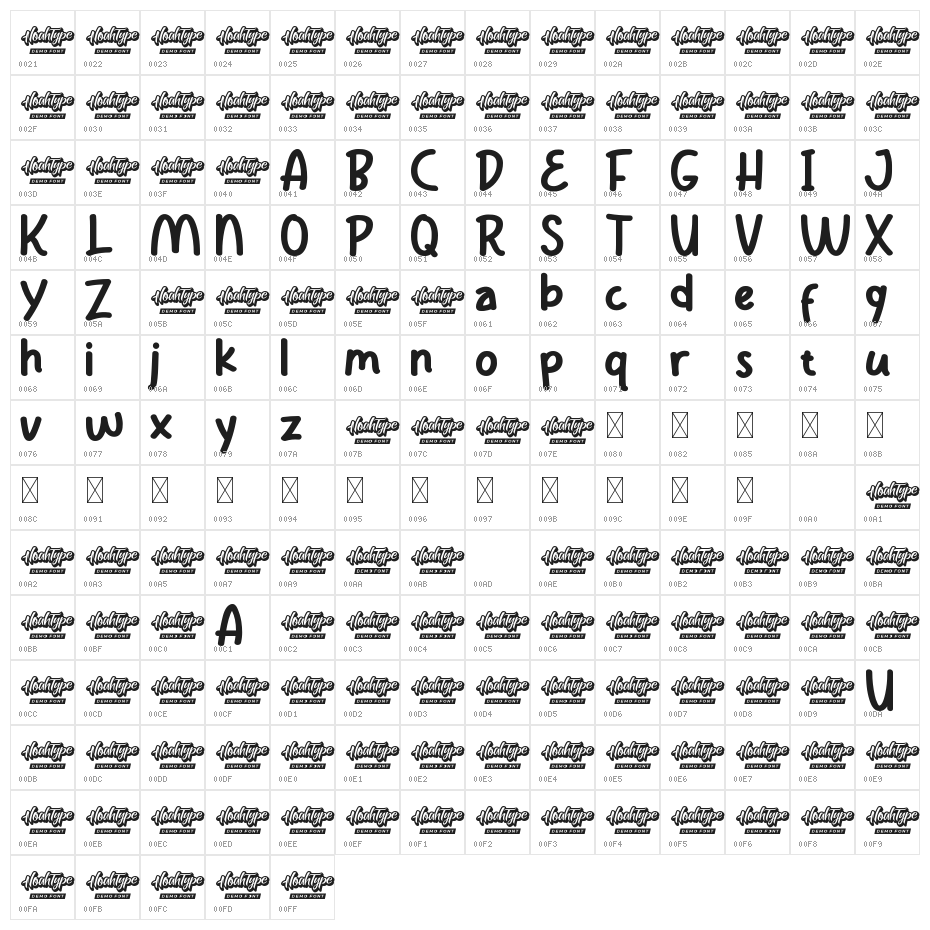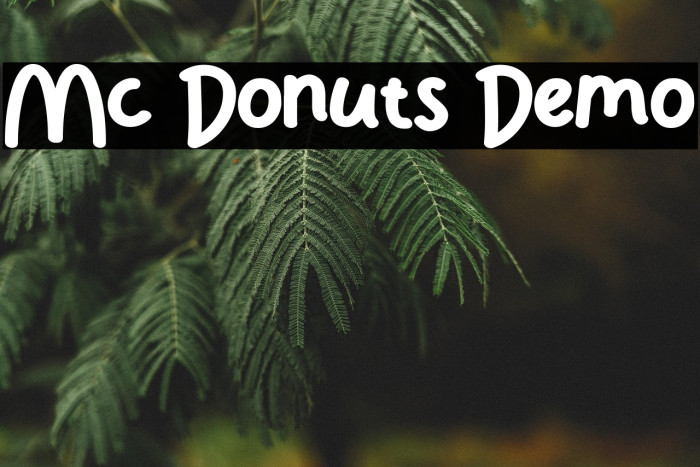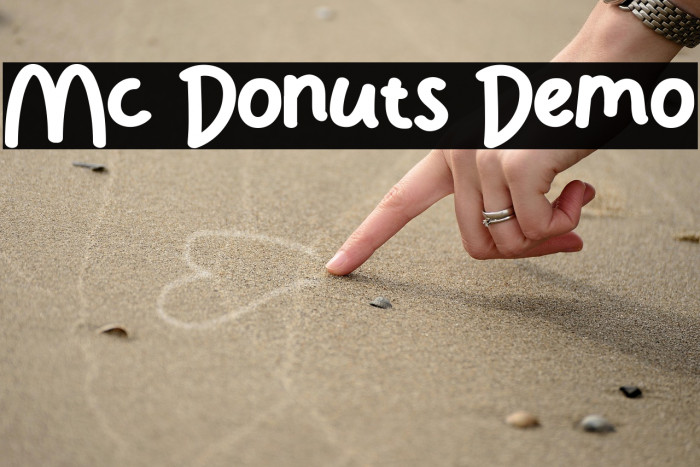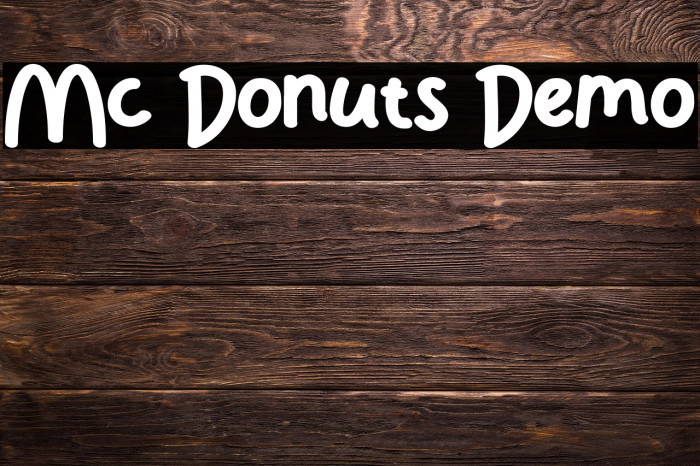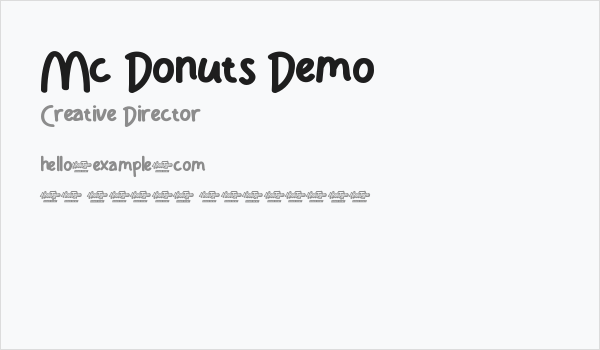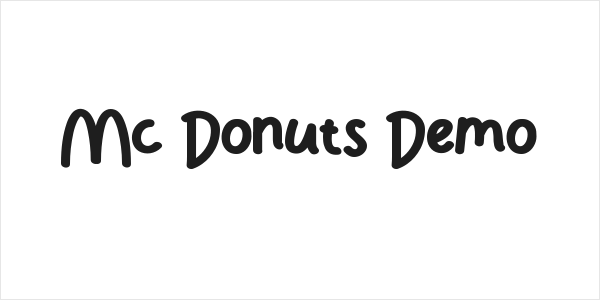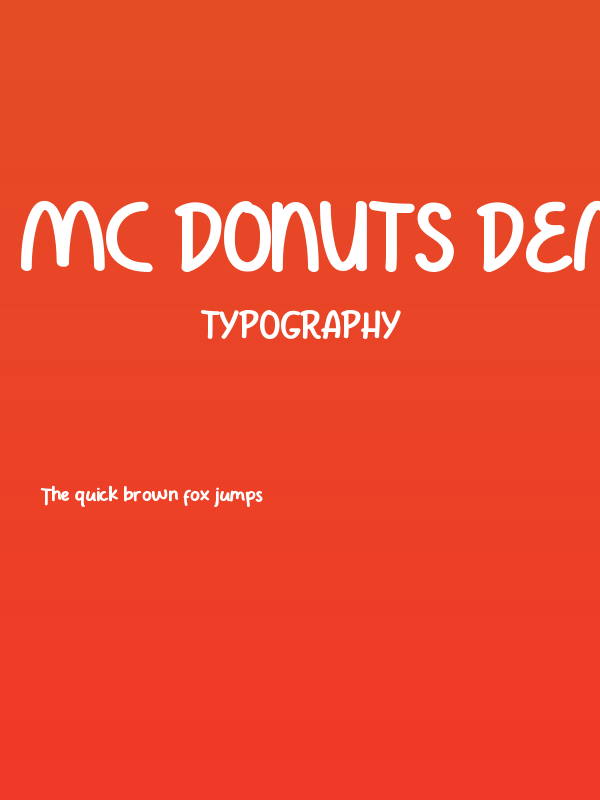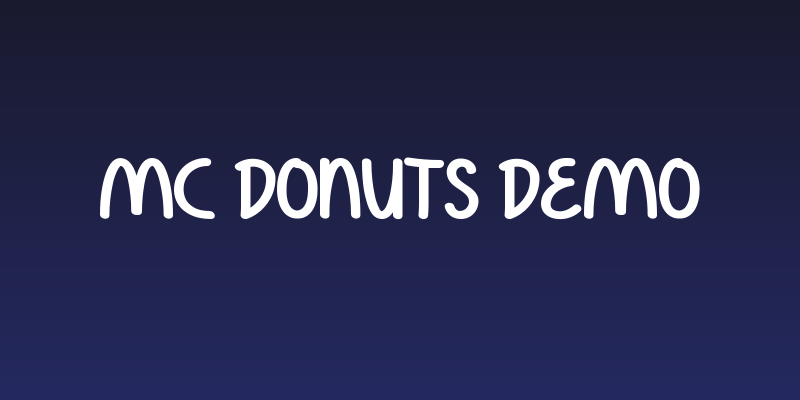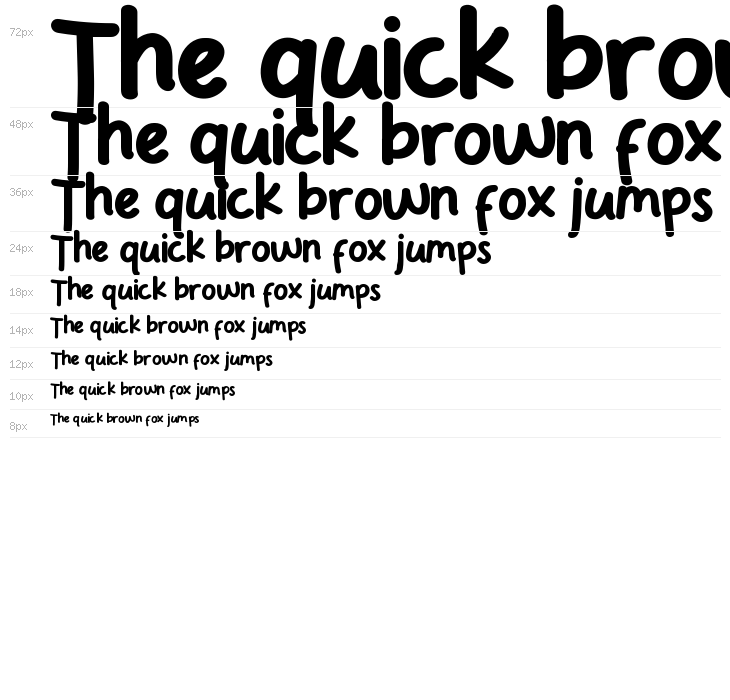
Mc Donuts Demo Font
Mc Donuts Demo Description
This playful and bold font features rounded, thick strokes that give it a friendly and approachable appearance. The letters are slightly irregular, adding a whimsical touch that enhances its casual style. The uppercase and lowercase characters maintain a consistent weight, contributing to a cohesive look. The font's design is reminiscent of hand-drawn lettering, making it ideal for projects that require a personal and informal feel. Its unique character shapes and smooth curves make it stand out, while the consistent stroke width ensures readability.
| Proposed Projects | Ideal for children's books, playful branding, casual invitations, and creative posters. |